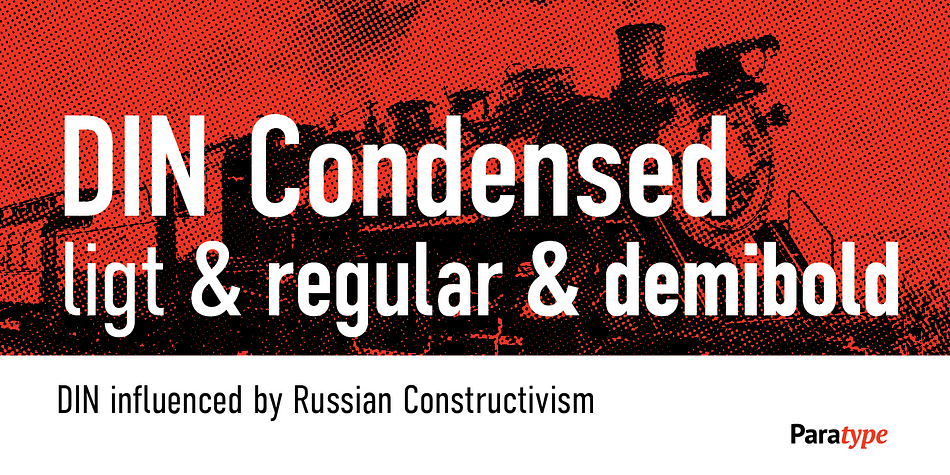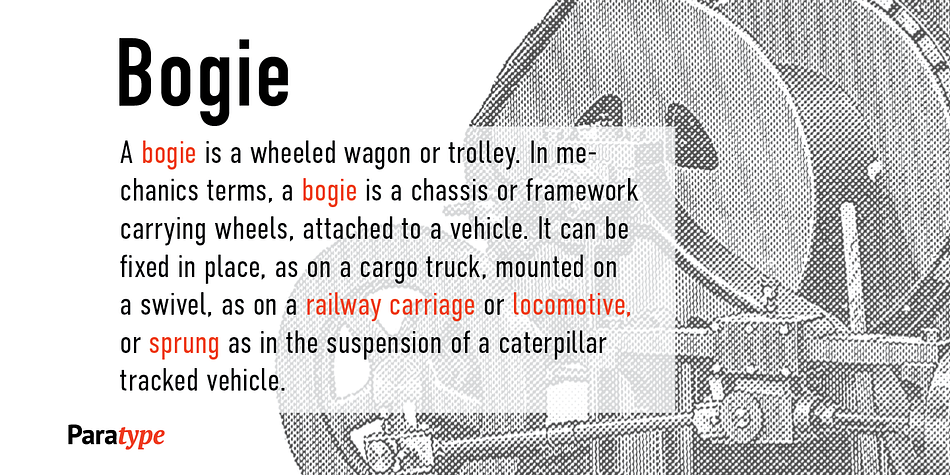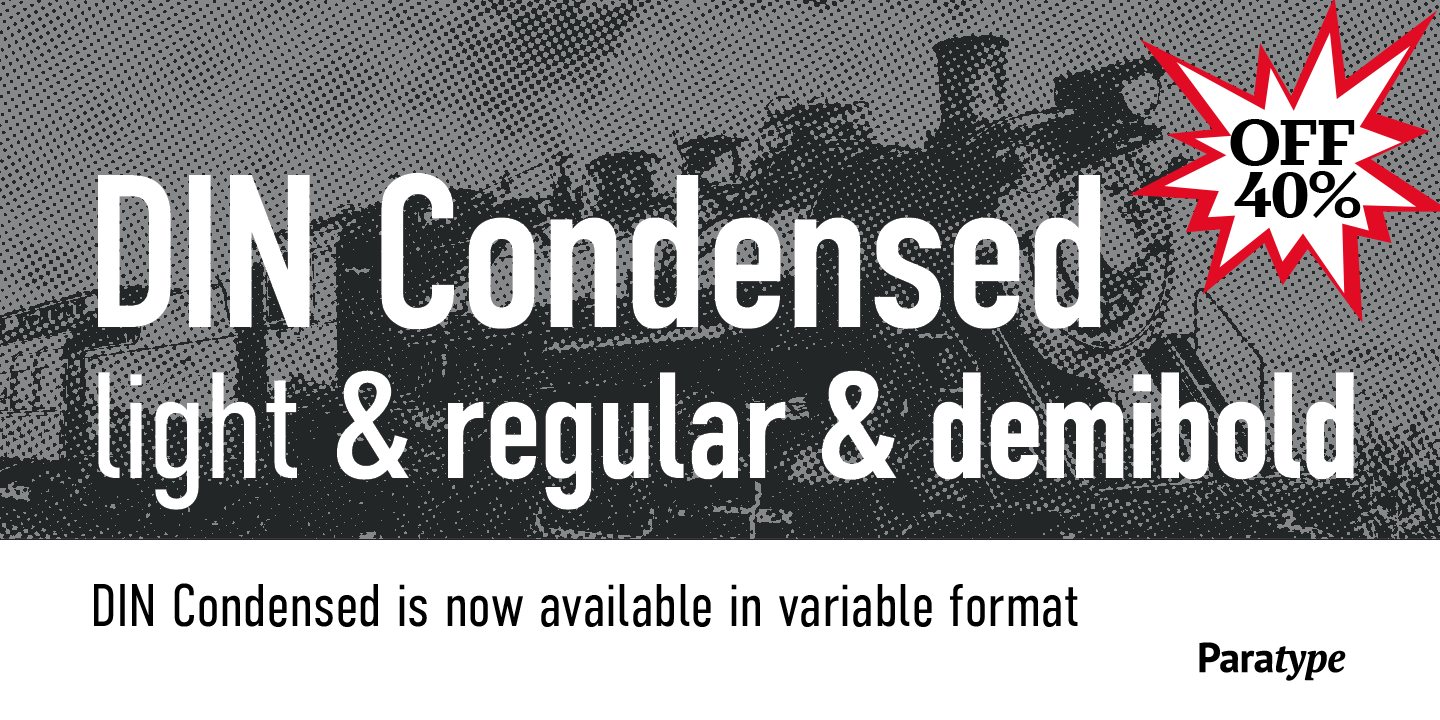
Designed by Tagir Safayev and Manvel Shmavonyan, DIN Condensed is a display sans font family. This typeface has two styles and was published by ParaType.
Designed at ParaType (ParaGraph) in 1997 by Tagir Safayev. Based on a condensed style of DIN type family (Linotype Staff designers). That is a group of sans serif faces made to conform to the German Industrial Standard. Based on geometric style, they vary in width but not in weight. Light style was added in 2014 by Manvel Schmavonyan.